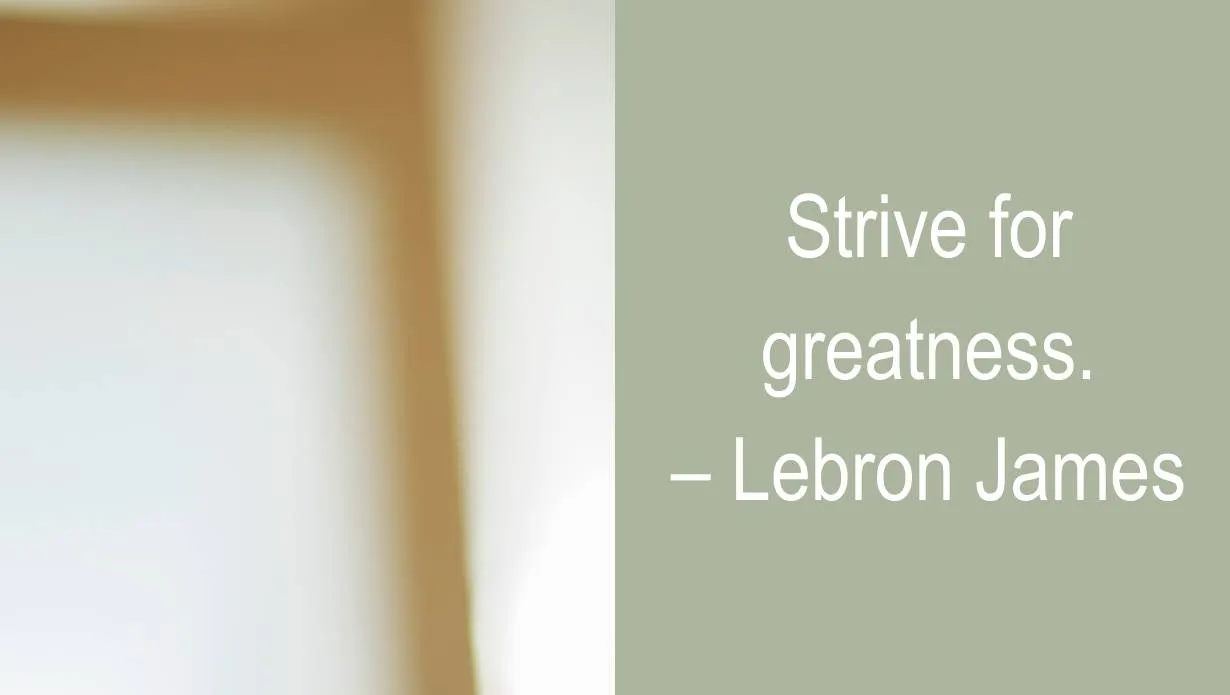
Today, we are showing the fittest and most gorgeous font that has clear characters and appearance named Arial Narrow Font. This font is designed by a combination of Robin Nicholas, Patricia Saunders. The release year of this font is 2006. This font is published under the banner of the Monotype Corporation foundry.